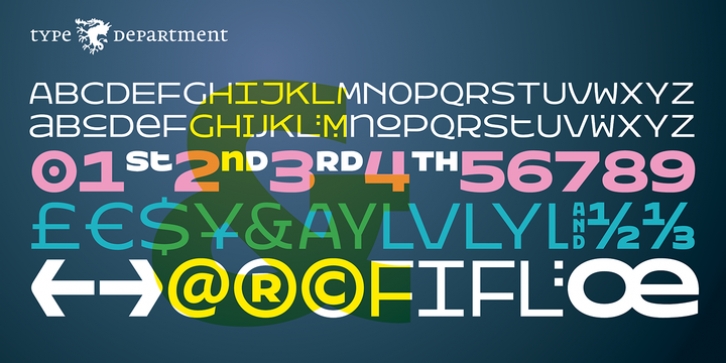
TD Hothouse downloadDesigner: Jürgen Huber
Publisher: Type Department
Hothouse was designed in 2001 for The Glasgow School of Art and is still in use as their corporate typeface today. It is recognizably inspired by Charles R. Mackintosh’s (1868–1928) explorations in the field of letterforms, renown architect of The Glasgow school of Art.
Based on a square the (almost entirely) monospaced Hothouse corresponds to Mackintosh’s art nouveau architecture. For the Type Department release Hothouse was carefully expanded into a versatile font family with Regular, Medium and Bold weights and includes a widely extended character set. Interchangeable upper and lower case characters and a set of alternative glyphs and ligatures provide great variety to the appearance of your text.